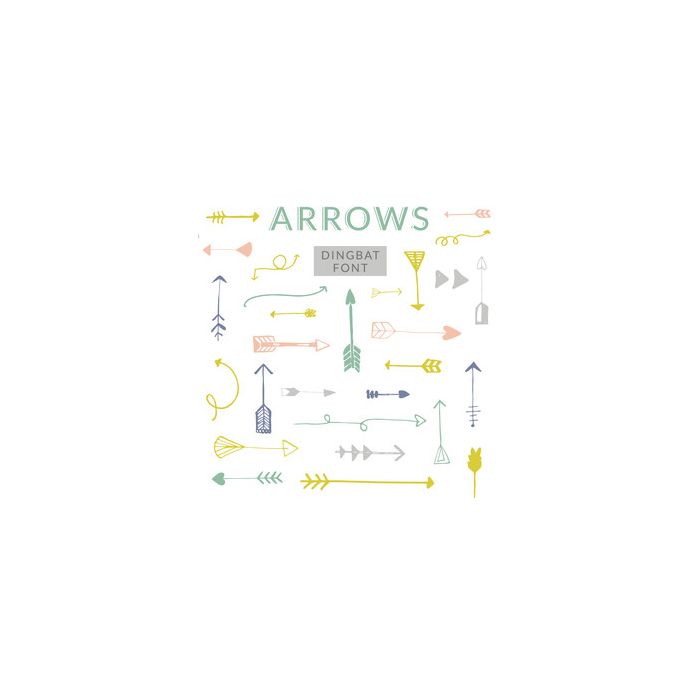
This handdrawn arrows dingbat font includes 26 cutesy arrows in a convenient and easy to use font format. Add extra flair to your designs with these too cute arrows. So many design possibilities!